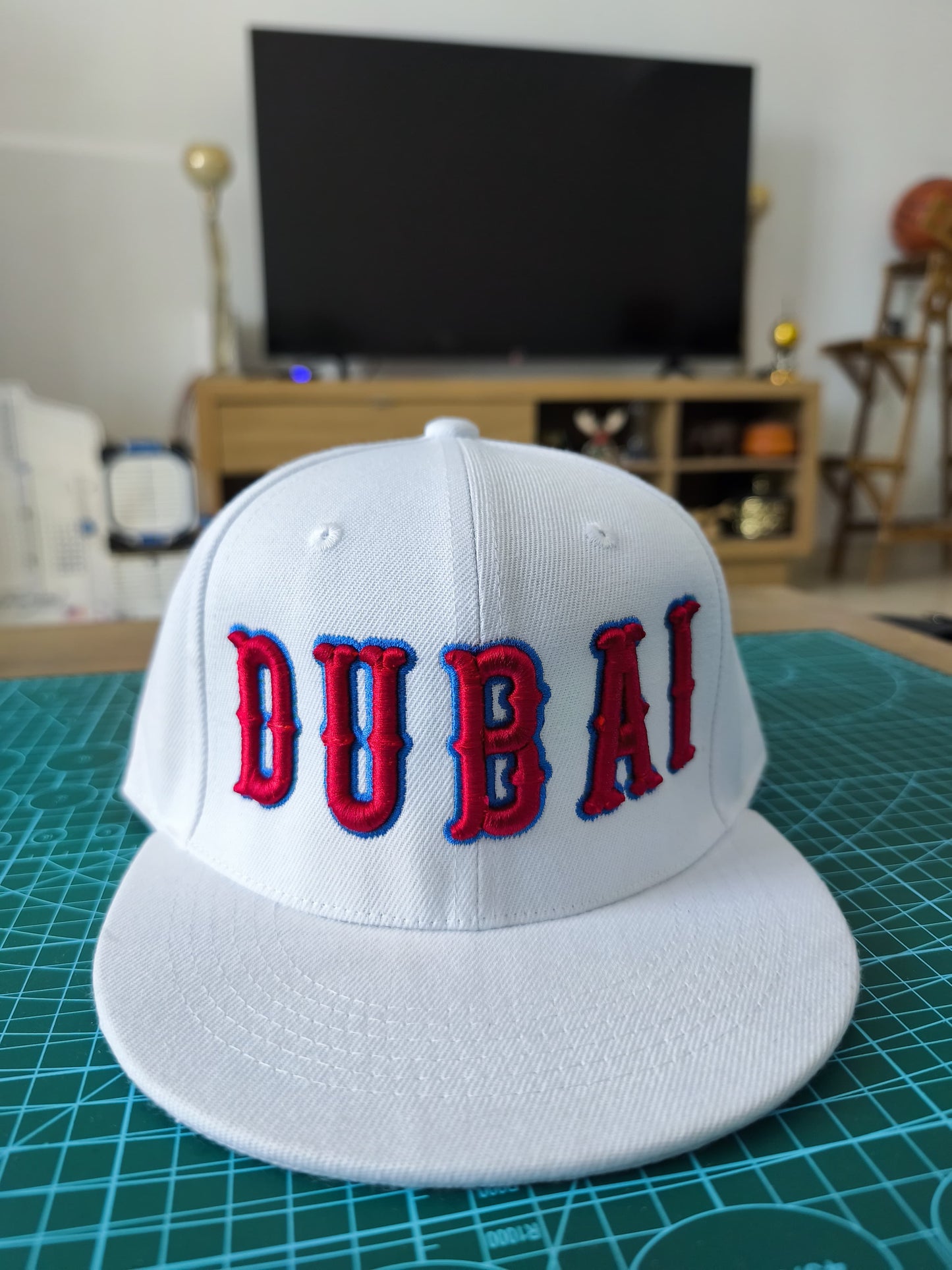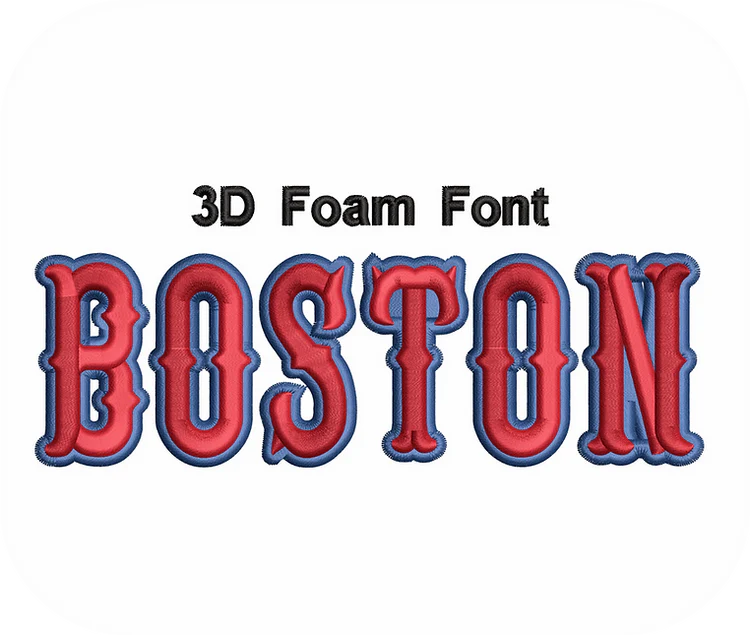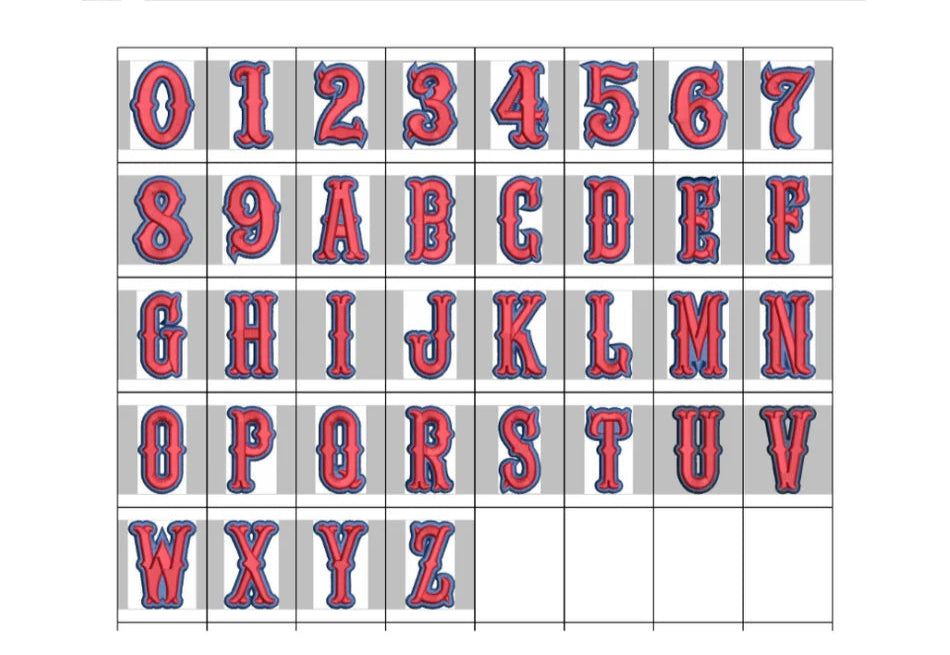
Custom 3D Foam Boston Font Embroidery Design - Athletic & Bold Team Spirit Collection for Sports & Streetwear
Fuel your team pride or streetwear swagger with our dynamic 3D Foam Boston Font Custom Embroidery Design!
Inspired by iconic sports aesthetics and Boston’s gritty legacy, this bold, block-style lettering features raised foam texture for a pro-league look.
✅ Boston Font Excellence: Crisp, athletic lettering reminiscent of championship teams and vintage sports merch.